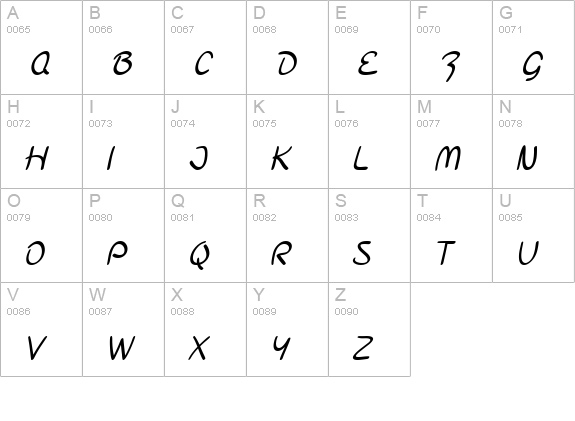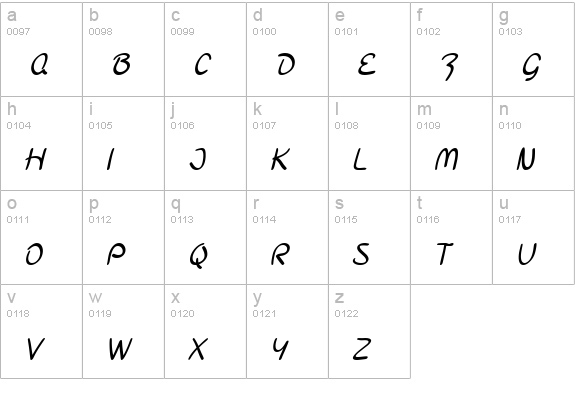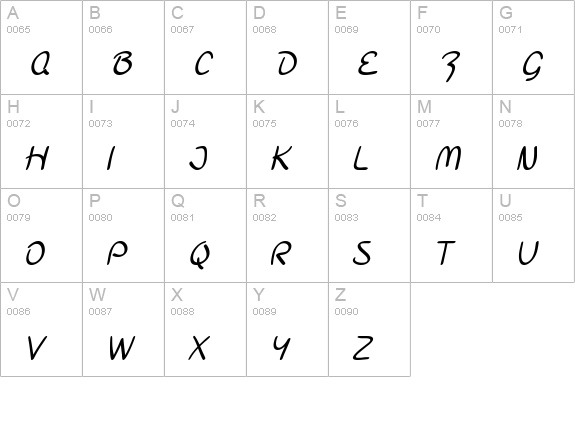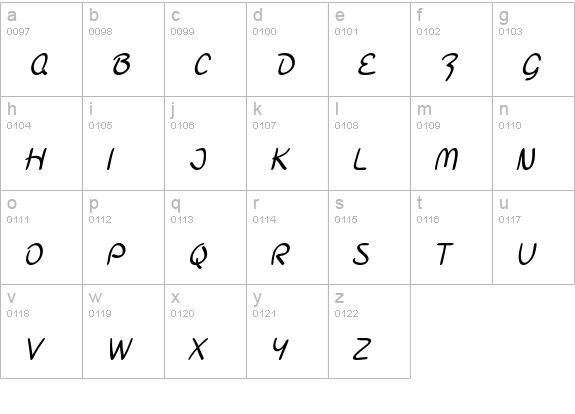
SF Burlington Script SC Bold Font Details
SF Burlington Script SC Bold is a strong, high-contrast variant in the SF typeface family \xE2\x80\x94 well suited to headlines, attention-grabbing titles, and strong calls-to-action.
SF Burlington Script SC Bold is a captivating and bold font that exudes elegance and style. With its sleek and modern design, this typeface is perfect for adding a touch of sophistication to any project. Its strong, confident strokes and unique letterforms make it stand out from the crowd. This font is freely available to download at FontsMarket.com, making it accessible to all designers and creatives. Whether you're working on a branding project, a logo design, or a website, SF Burlington Script SC Bold will elevate your work to new heights. The attention to detail in this font is impeccable. Each letter is meticulously crafted, resulting in a smooth and seamless flow that is pleasing to the eye. The bold weight of the font adds impact and presence, making it ideal for headlines and titles. SF Burlington Script SC Bold is versatile and can be used in a variety of design settings. Its clean lines and balanced proportions make it suitable for both print and digital media. From business cards to posters, this font will make a lasting impression. The beauty of SF Burlington Script SC Bold lies not only in its aesthetics but also in its functionality. It is easy to read, ensuring that your message is effectively conveyed to your audience. Additionally, its OpenType features allow for creative customization, giving you the freedom to experiment and create unique designs. In conclusion, SF Burlington Script SC Bold is a powerful and stylish font that is freely available to download at FontsMarket.com. Its bold weight, elegant design, and versatility make it a must-have for any designer looking to make a statement. Add a touch of sophistication to your projects with this exceptional font.